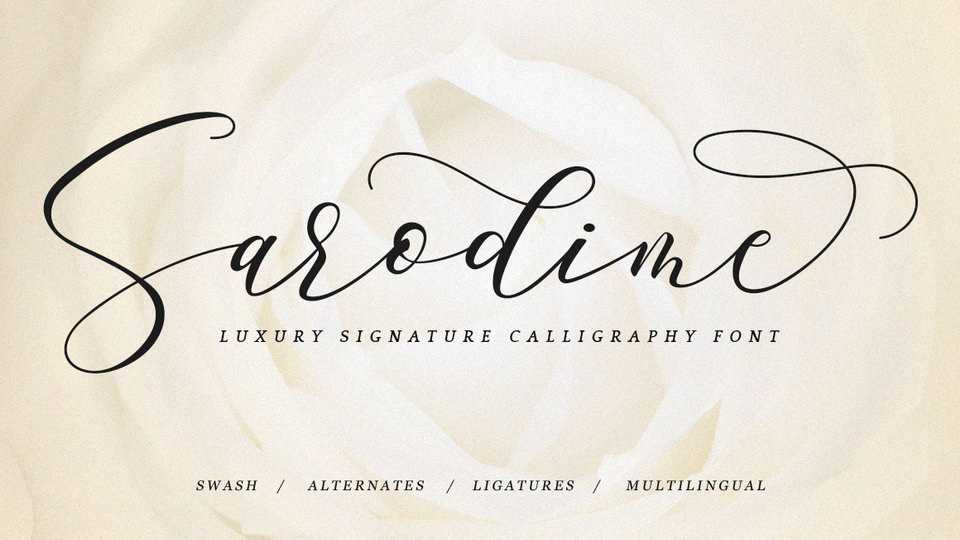
Dwonload Sarodime font, a luxury calligraphy script with a natural & stylish flow. Perfect for many different projects such as logos & branding, invitations, stationery, wedding designs, social media posts and more.
Designer: Kotak Kuning